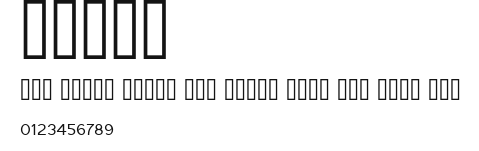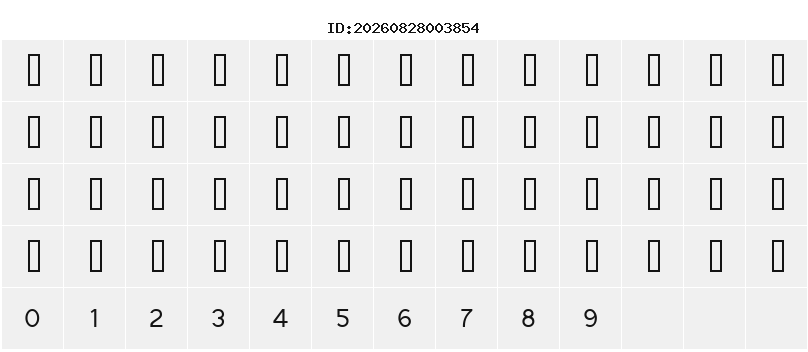
• Font Name: Tunga
• Font ID: Tunga Regular
• Full Font Name: Tunga
• Version: Version 1.06
• PostScript Name: Tunga-Regular
• Character Count: 134
• Designer: Raghunath Joshi (Type Director), Vinay Saynekar
• Description: Tunga is an OpenType font for the Indic script - Kannada. It is based on Unicode, contains TrueType outlines and has been designed for use as a UI font.
Tunga.ttf is a modern, elegant sans-serif font designed for ultimate readability and visual harmony. Perfect for branding, headlines, web design, and print materials.